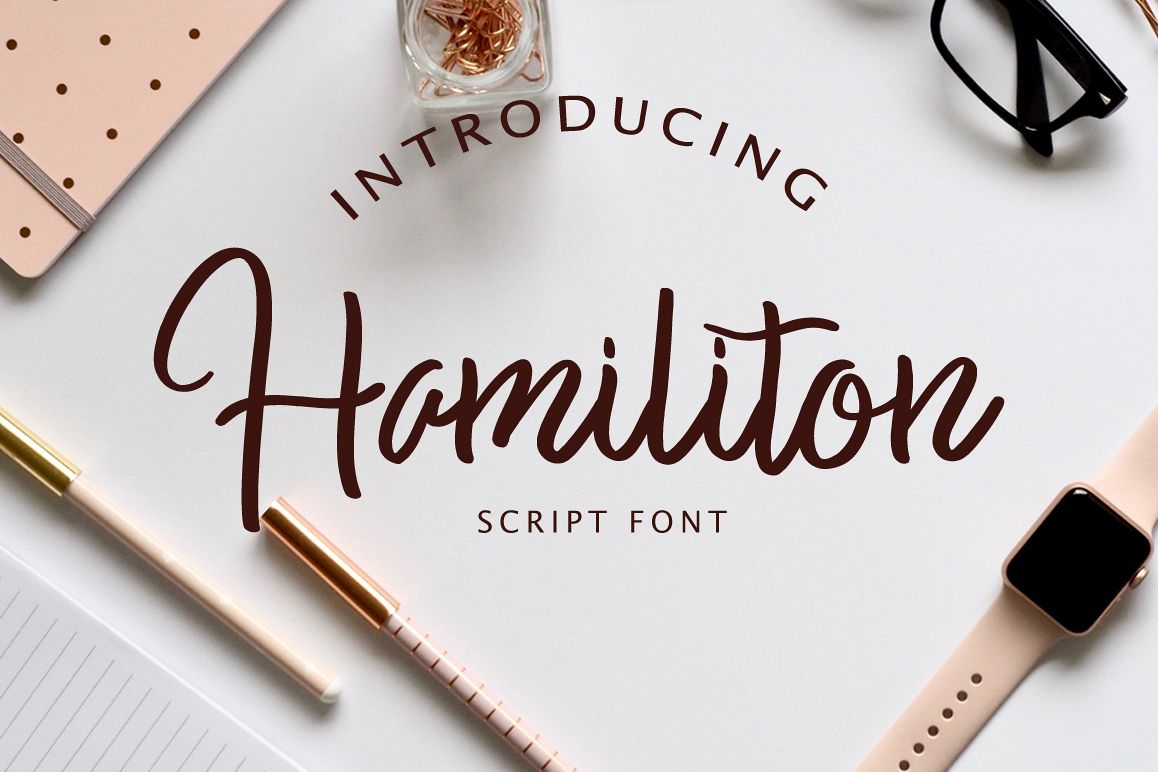
Hamiliton
Hamiliton-Regular
Hamiliton Script is a beautyfull script font. Great for various purposes such as Magazine, t-shirt, letterhead, posters, Wedding invitation, badges etc.
Hamiliton Script comes with uppercase, lowercase, numerals and punctuation.